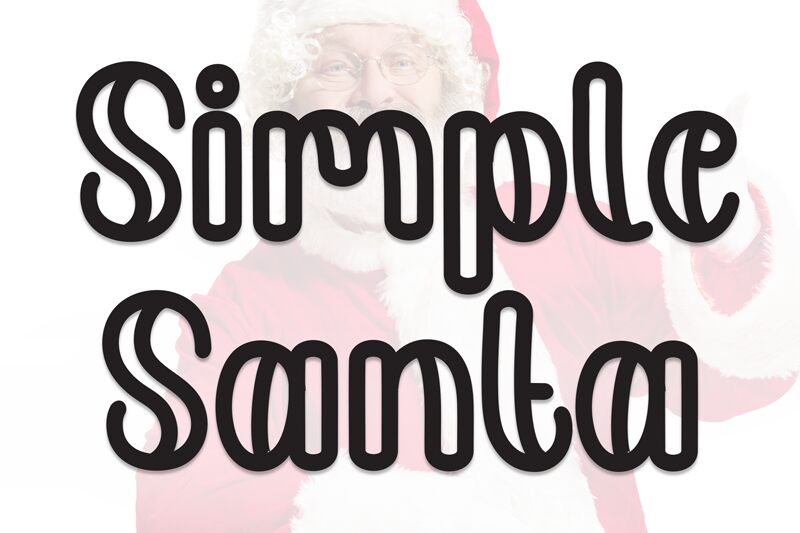
Simple Santa
Simple Santa font by Andi Moz is a free outlined brush display font with a cozy, handwritten vibe. Its defining feature is the tubular outline—like a candy-cane ribbon—giving each letter a soft, buoyant lift while keeping strokes steady and readable. The rounded joins and even rhythm feel warm and friendly, so headlines pop without shouting.
Using Simple Santa, you’ll get cheerful, approachable type that shines on holiday cards, wedding details, kids’ party invites, bakery logos, gift tags, stickers, and playful social posts. The outline adds instant depth, so you can keep layouts simple and still look finished. Pair this free font with a clean, light-weight sans and give it generous line spacing to let those looping forms breathe.